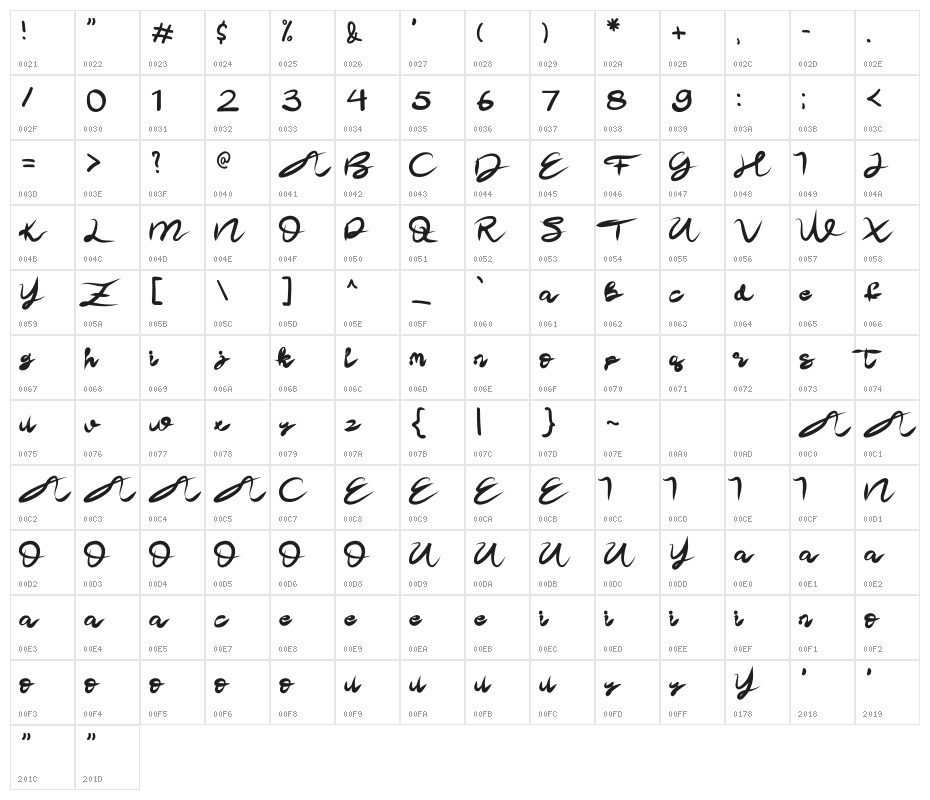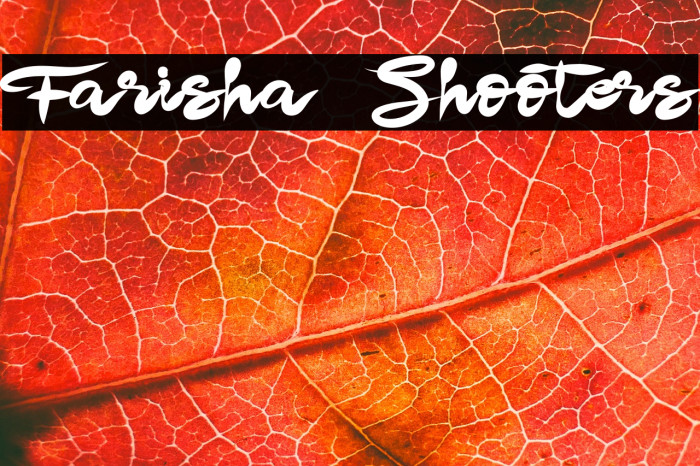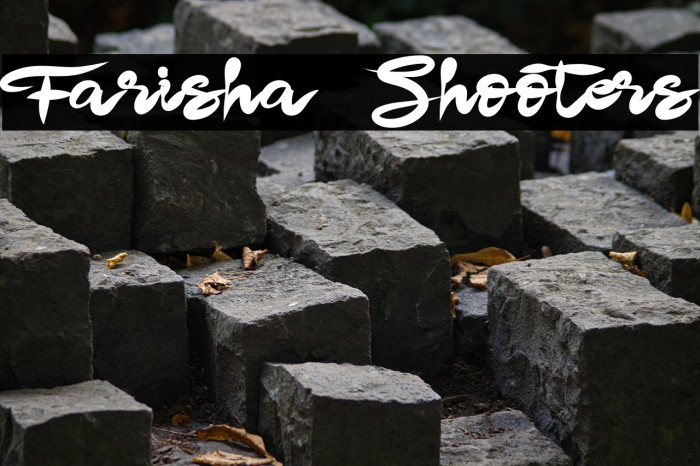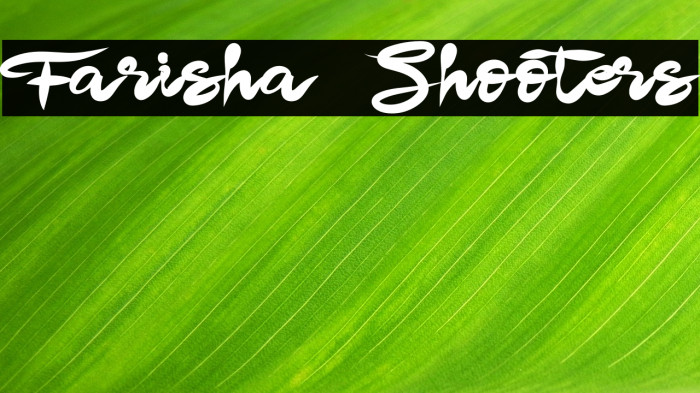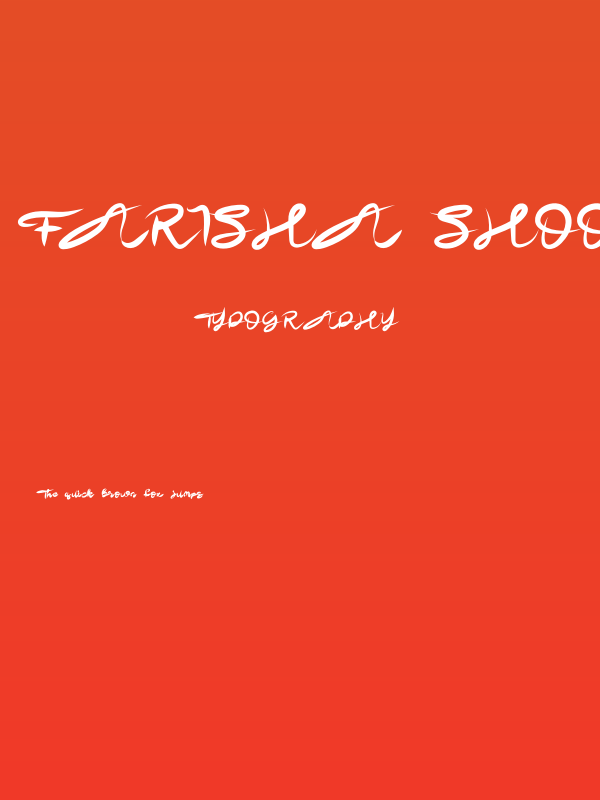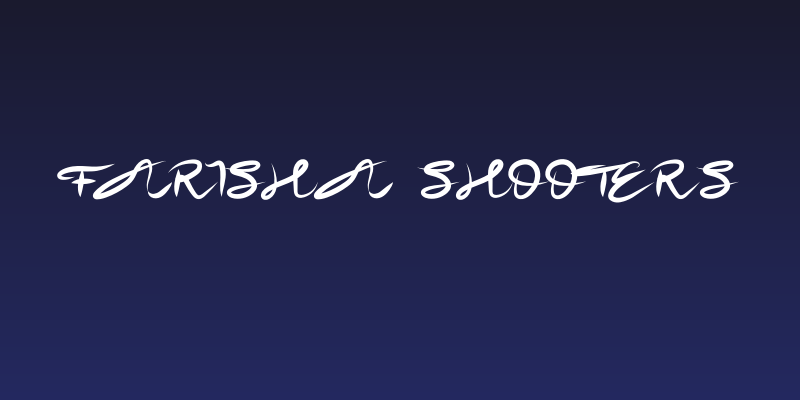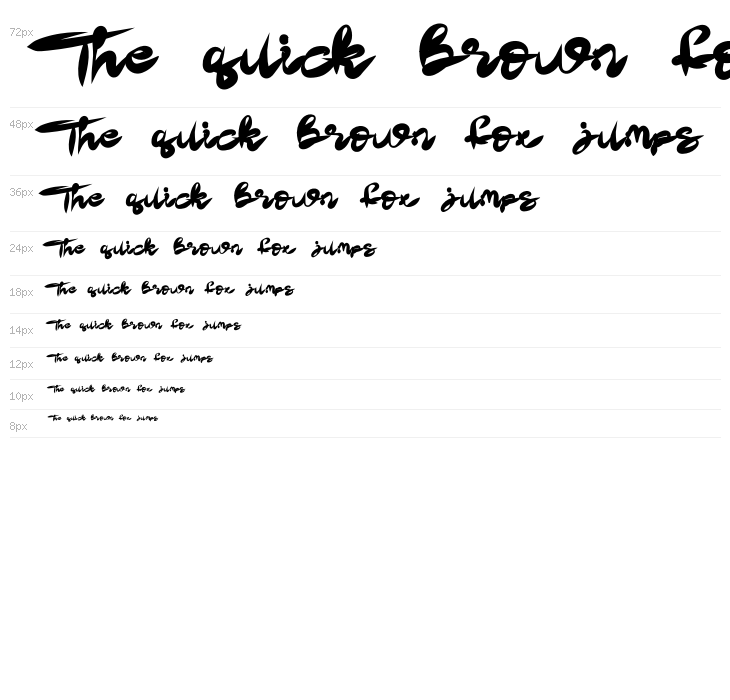
Farisha Shooters Font
Farisha Shooters Description
This font features a dynamic and expressive script style, characterized by fluid, interconnected strokes that mimic the flow of handwriting. The uppercase letters exhibit a graceful, sweeping motion, while the lowercase letters maintain a consistent rhythm, enhancing readability despite their ornate design. The numerals and special characters are crafted with the same attention to detail, ensuring a cohesive look across all glyphs. The overall appearance is bold and artistic, making it suitable for projects that require a personal touch or a sense of elegance.